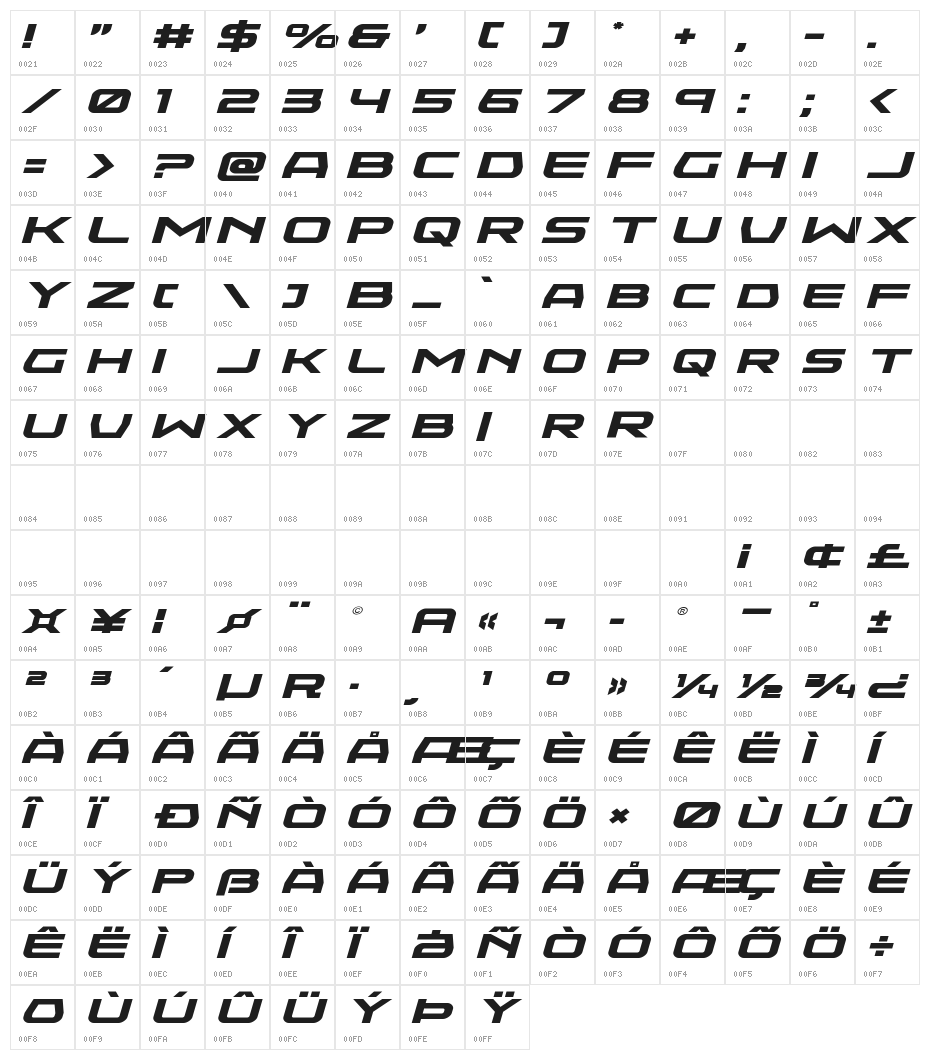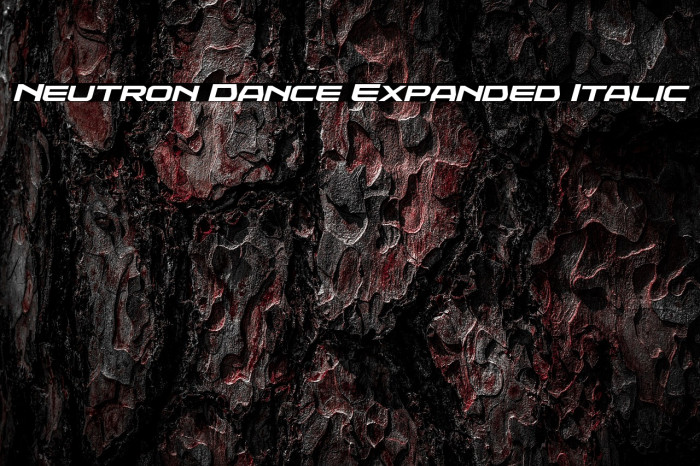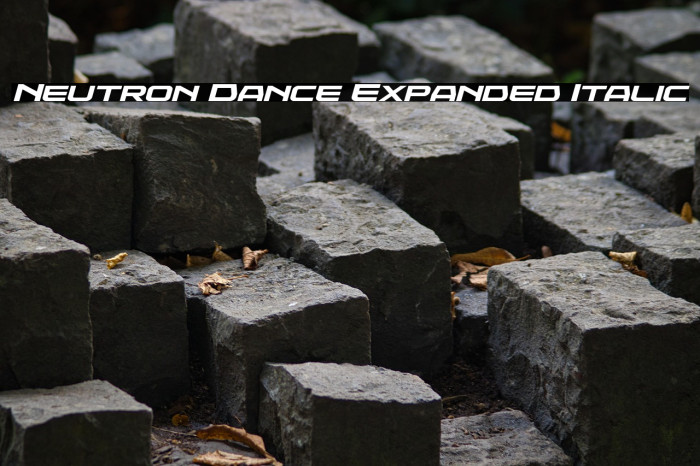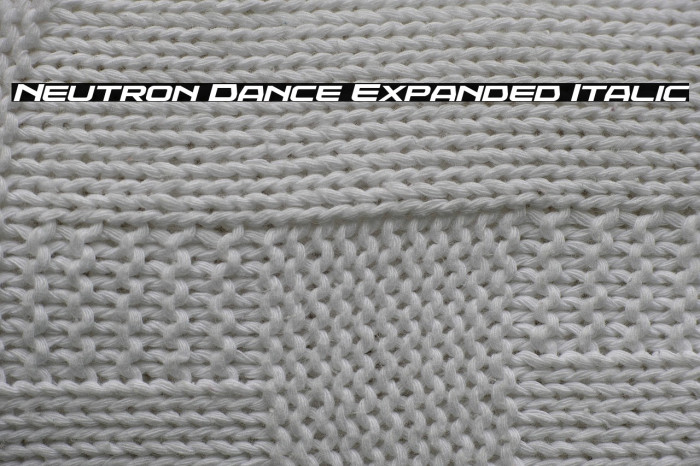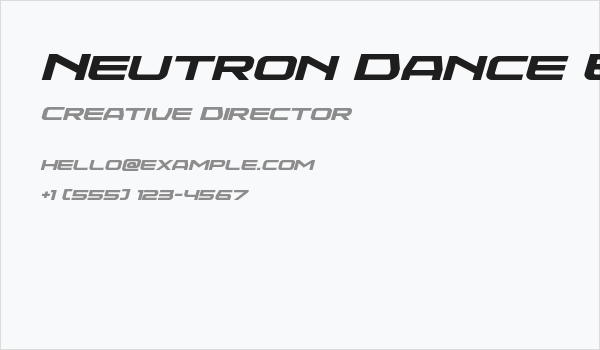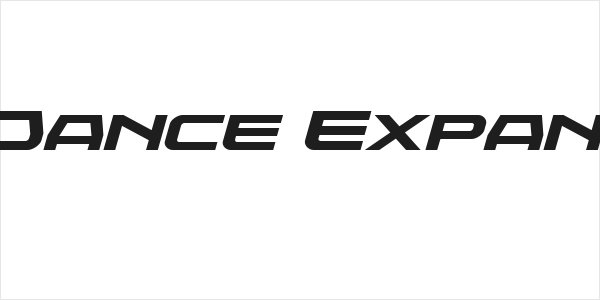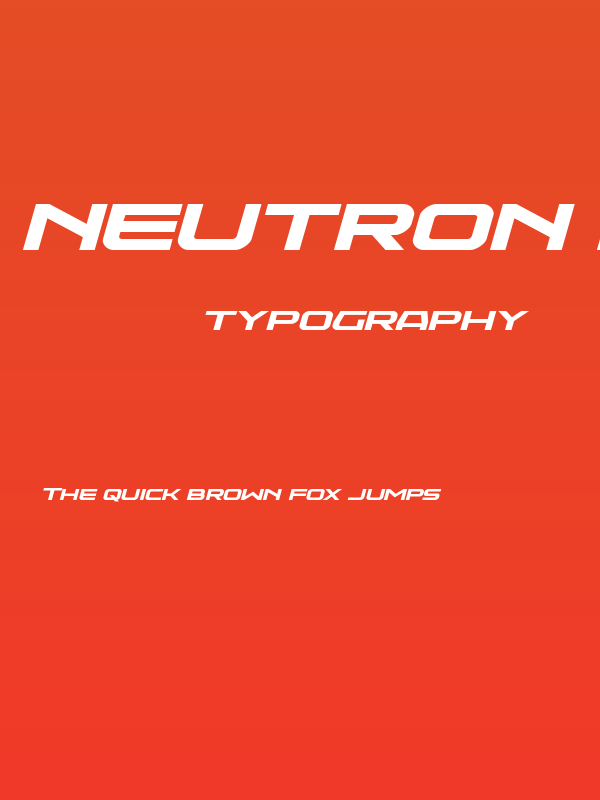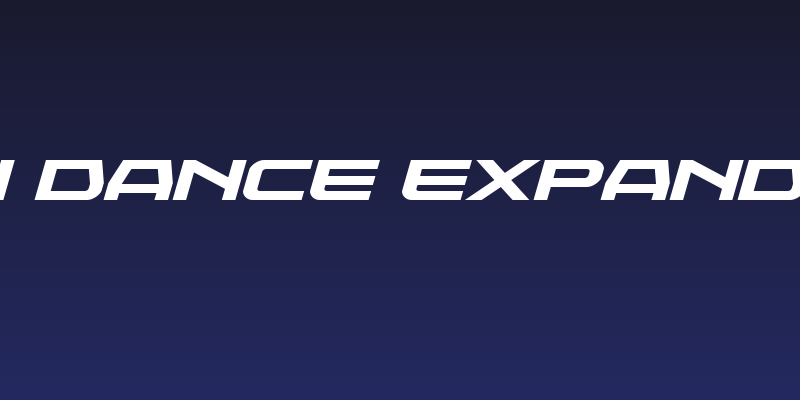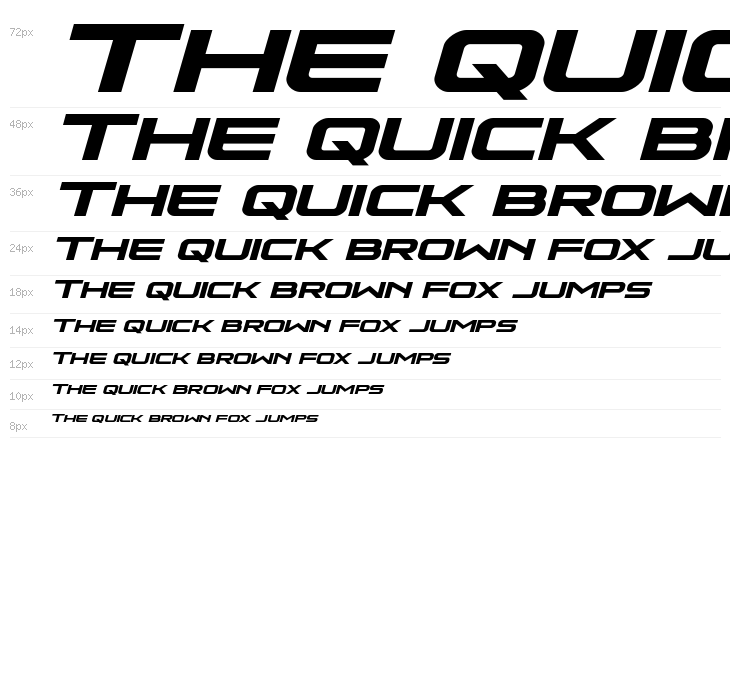
Neutron Dance Expanded Italic Font
Neutron Dance Expanded Italic Description
This font features a bold, italicized style with an expanded width, giving it a dynamic and futuristic appearance. The characters are designed with sharp angles and a slight slant, enhancing the sense of motion and energy. The uppercase letters are consistent in height, while the lowercase letters maintain a uniform baseline, contributing to a cohesive look. The numerals are distinct and easily readable, matching the overall aesthetic. Special characters are included, maintaining the same stylistic elements, making this font versatile for various applications.
| Proposed Projects | Ideal for projects requiring a modern and energetic feel, such as tech branding, sports team logos, or sci-fi themed designs. |